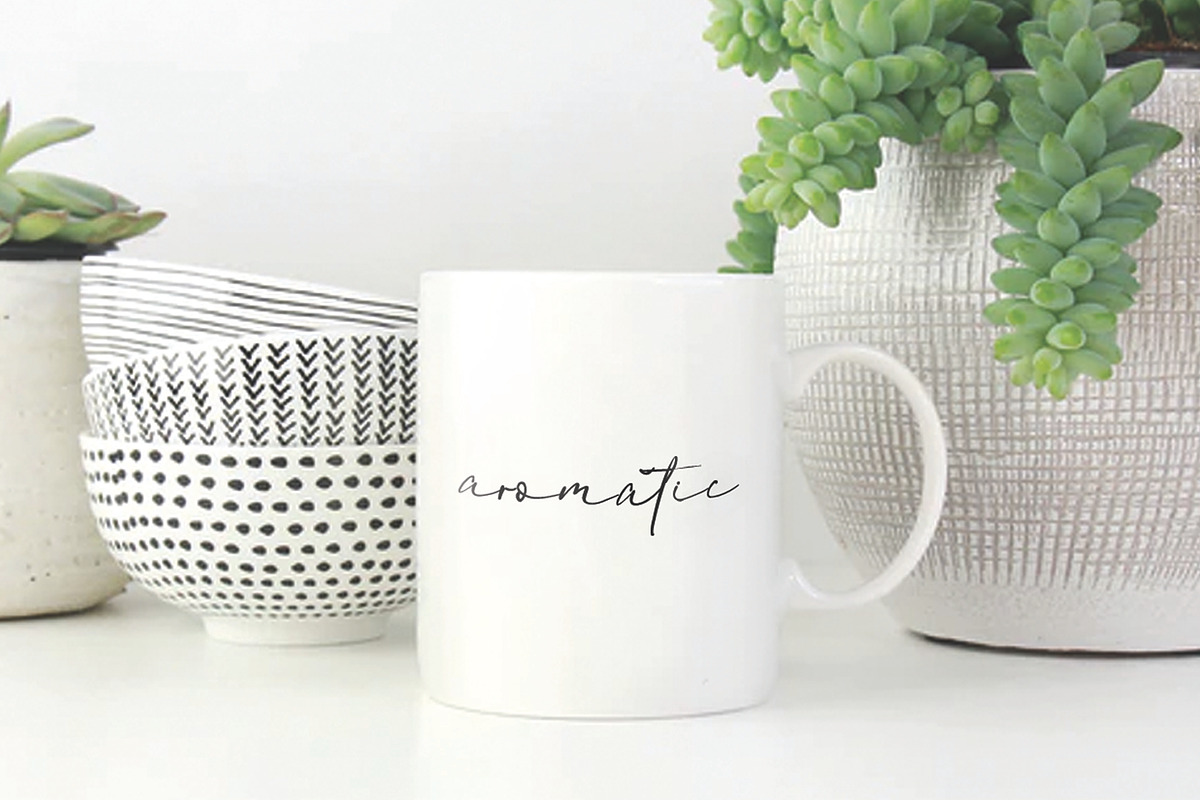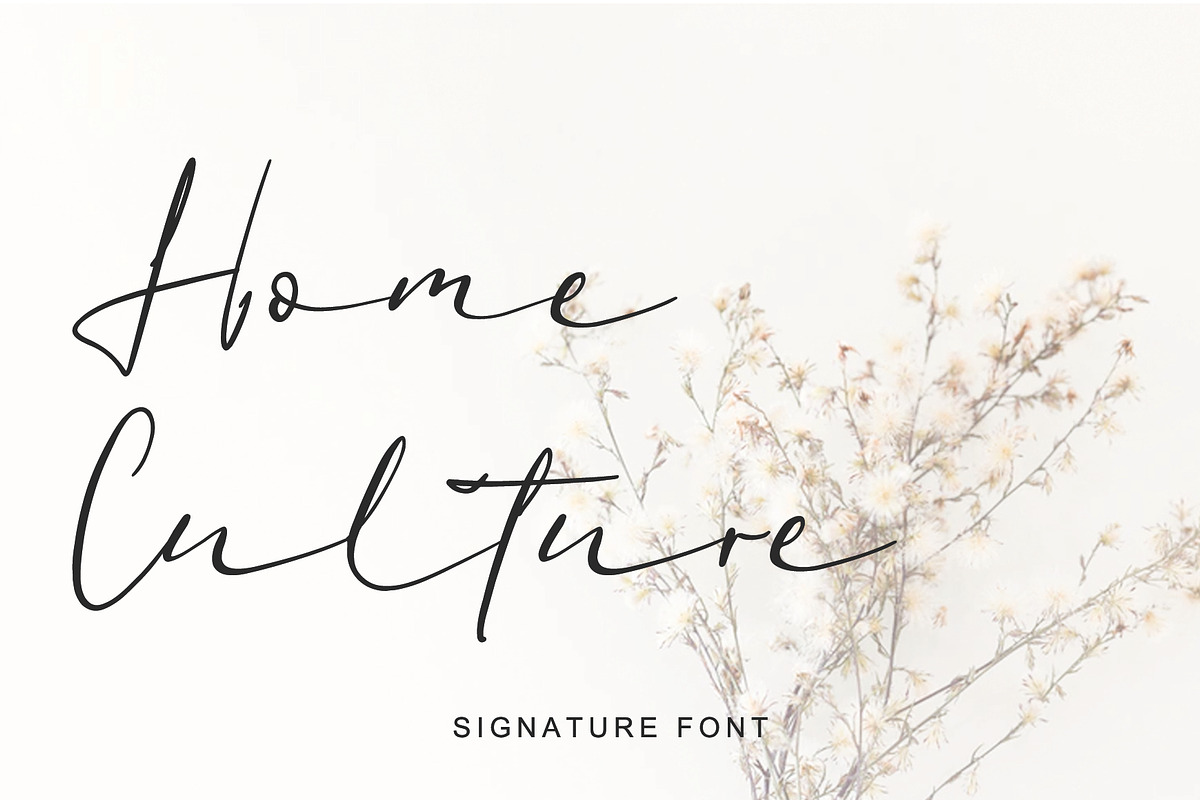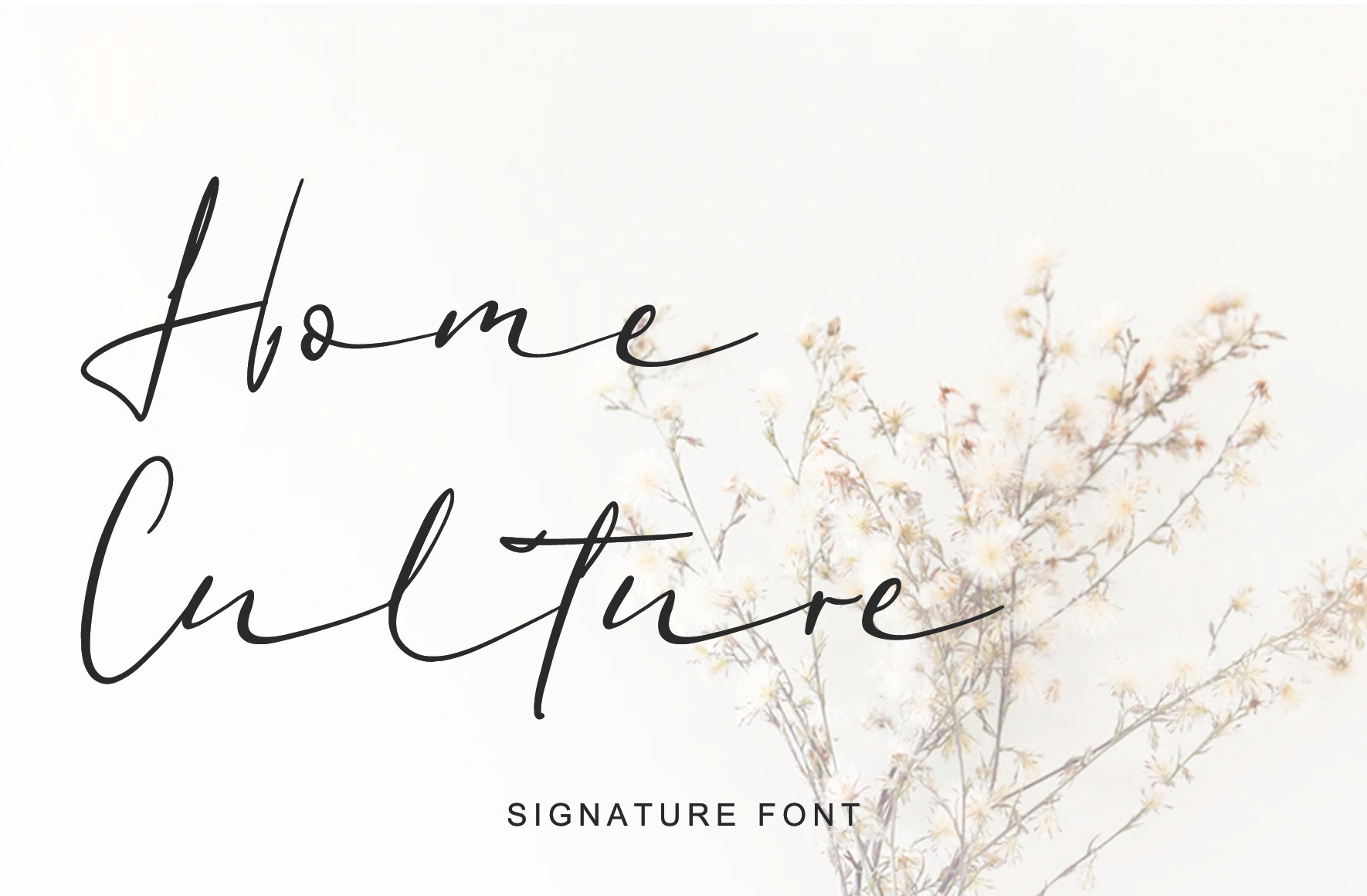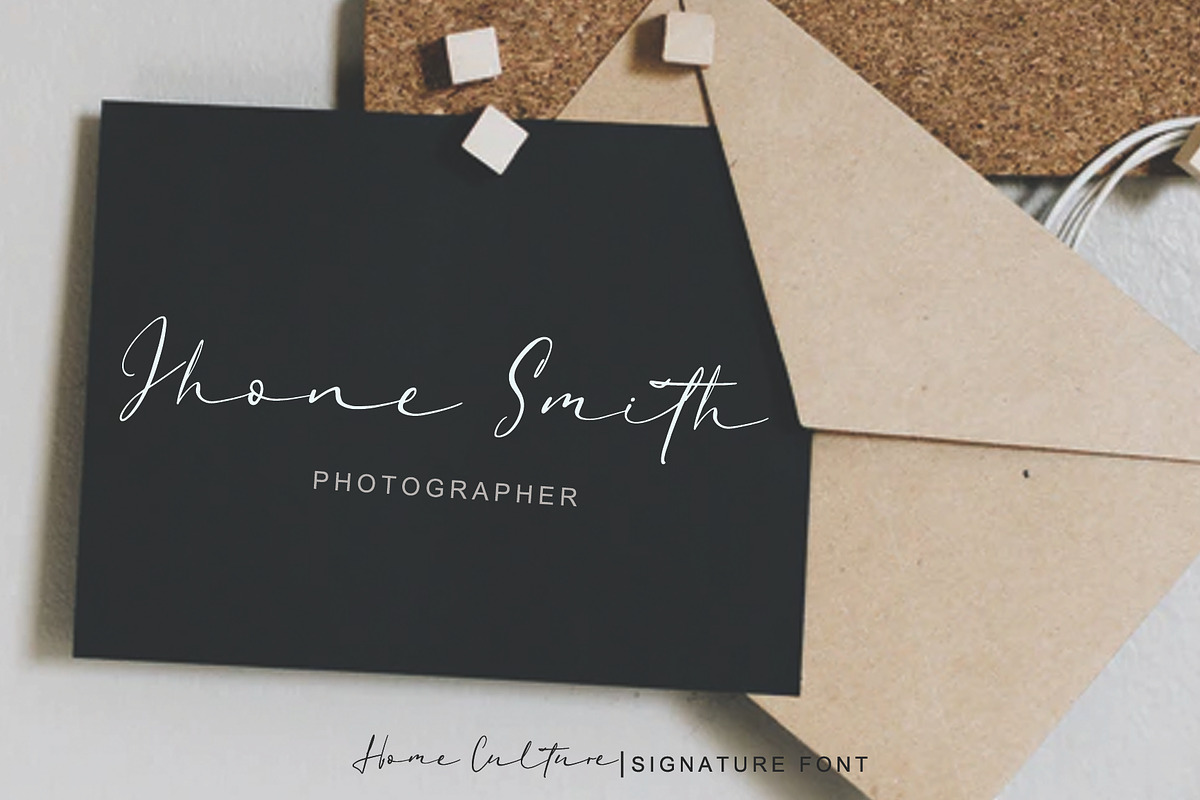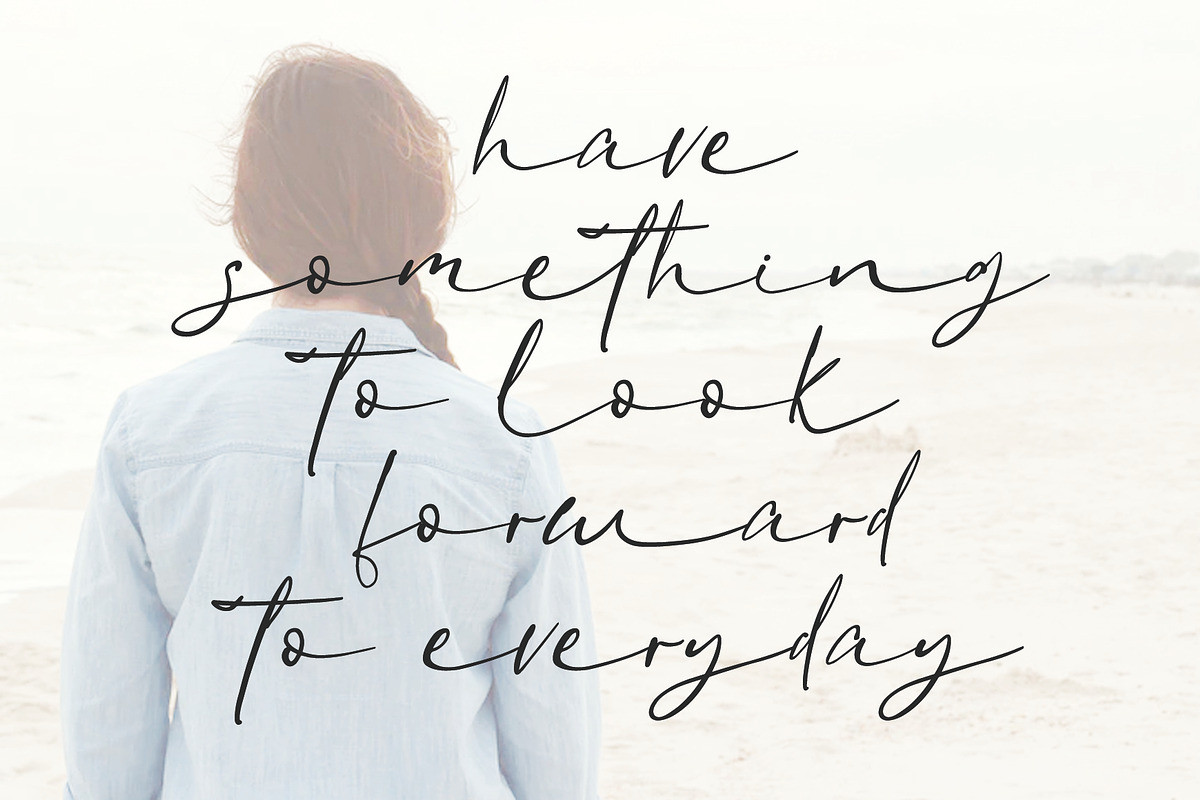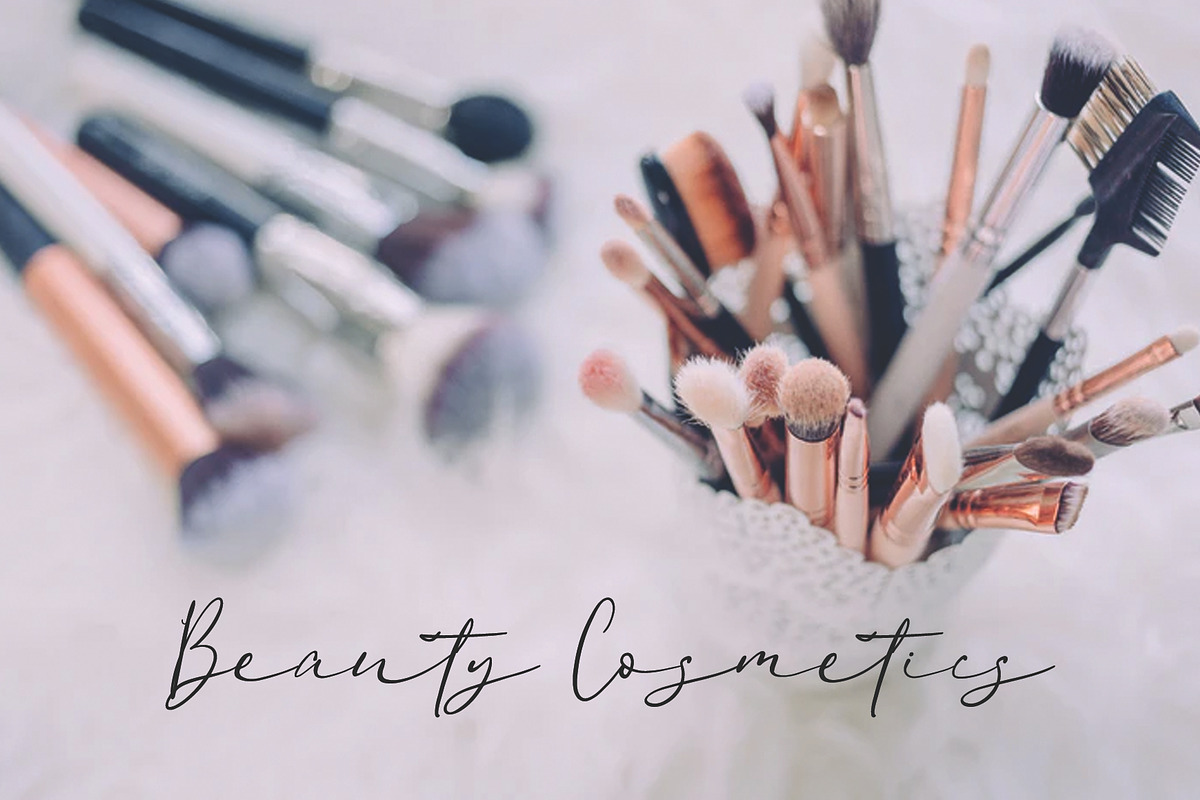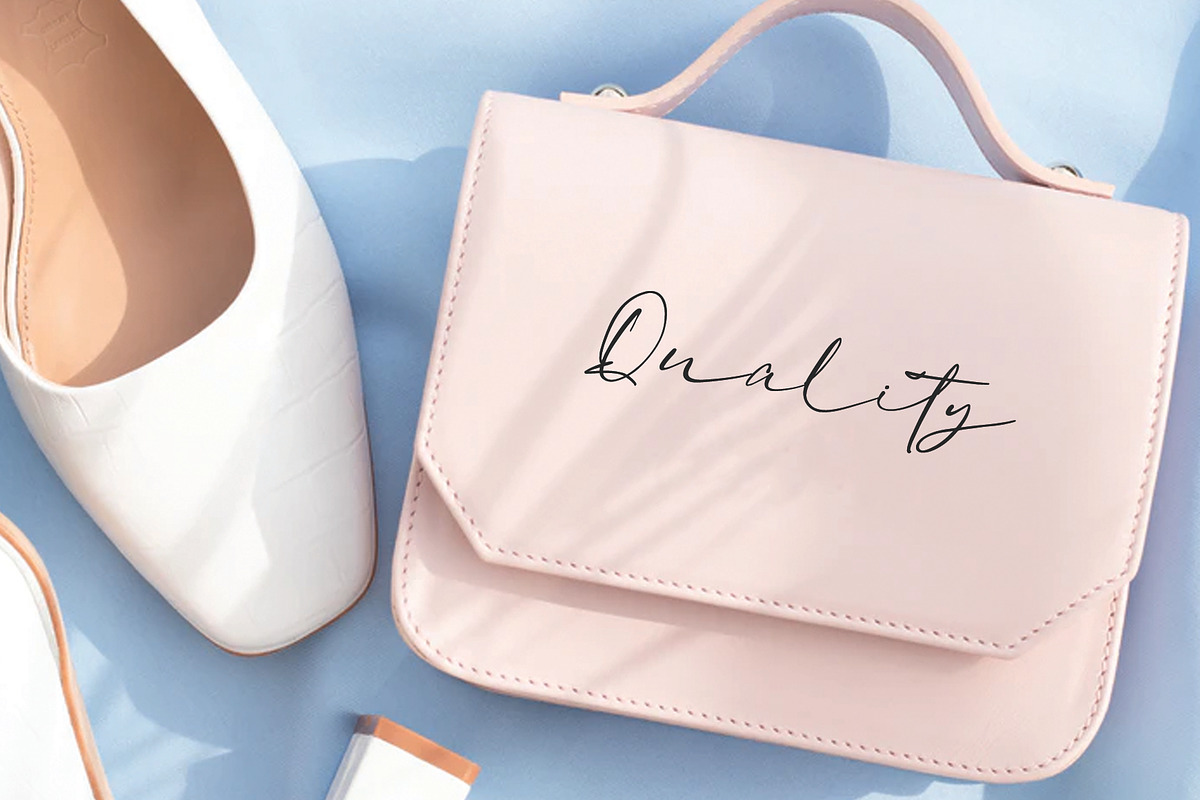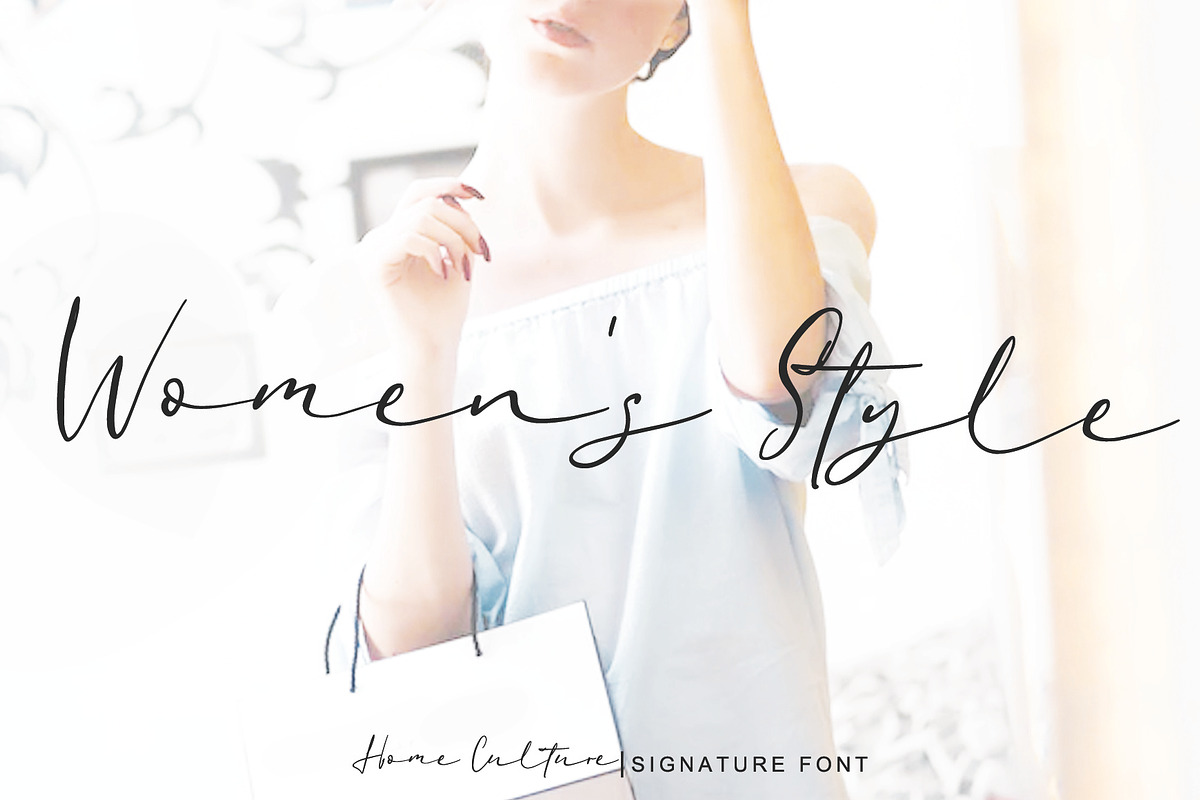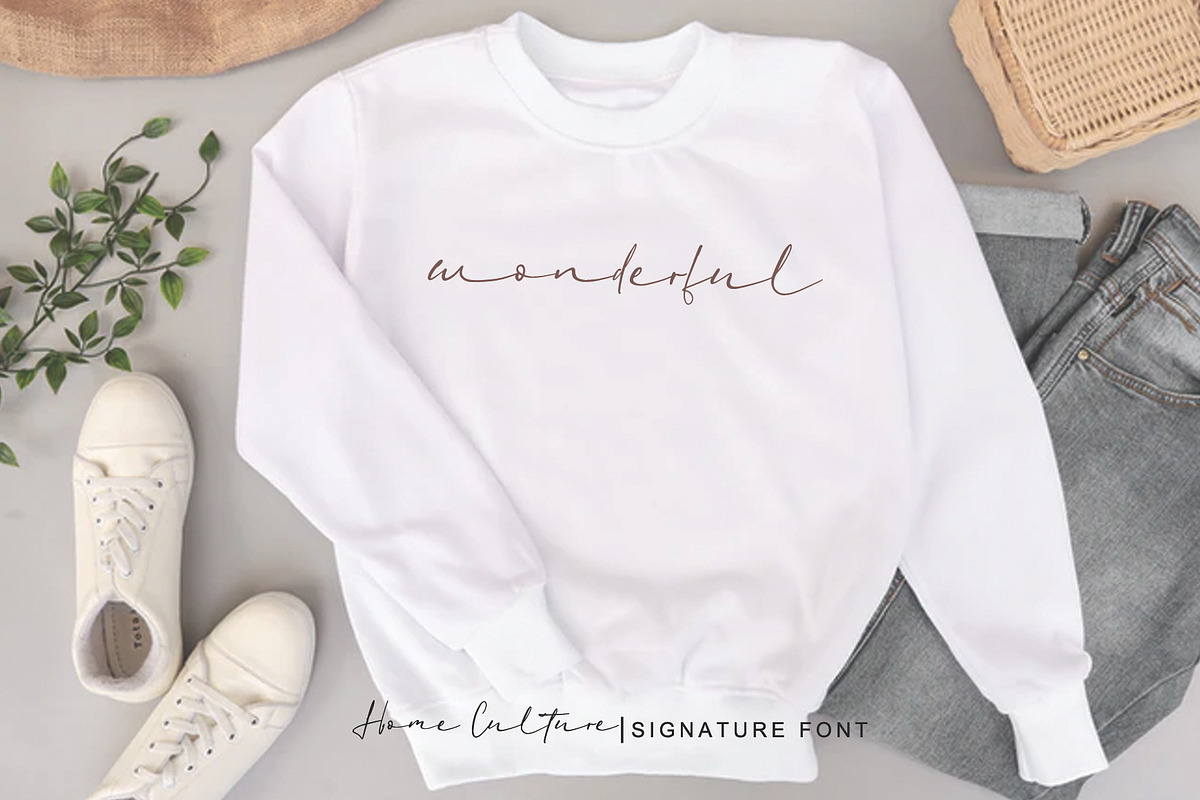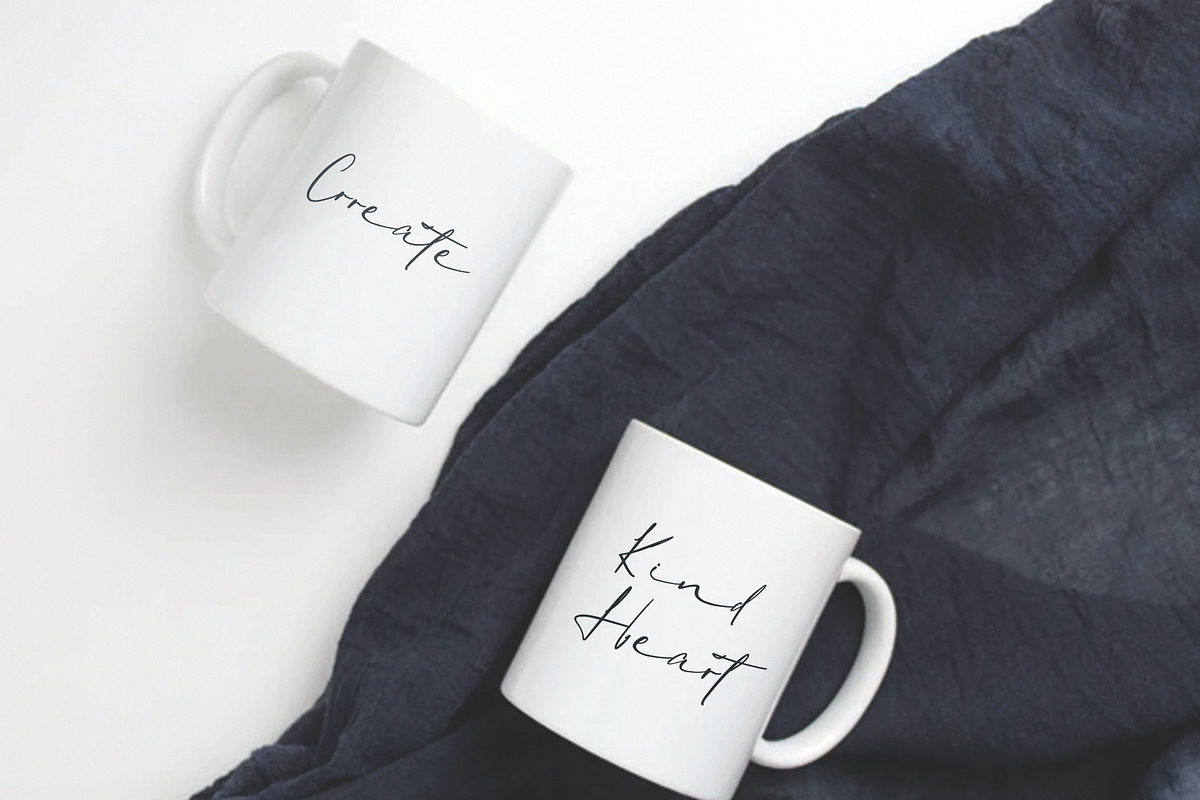
Home Culture - Handwriting Font
Introducing Home Culture; Original hand drawn script font. This font has been carefully designed to recreate natural handwritten text and create free-flowing pen strokes. Home Culture is perfect for handwritten quotes, signs, posters, signature styled logos, stylish branding projects, and handcrafted product & stationery designs.
Home Culture - A Signature script font containing upper & lowercase characters, Ligatures, mutilingual, numerals, and a large range of punctuation.